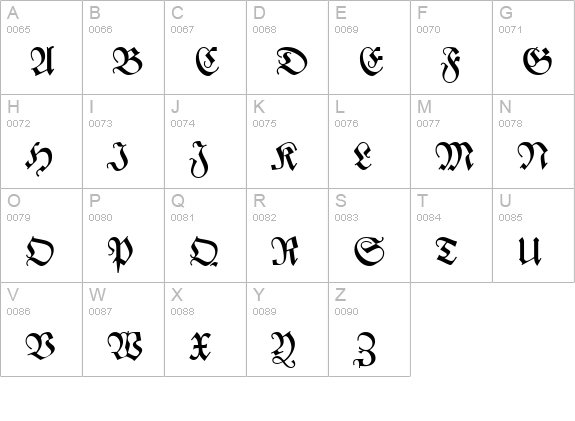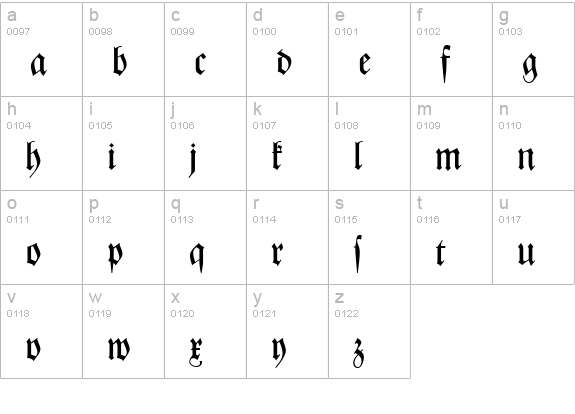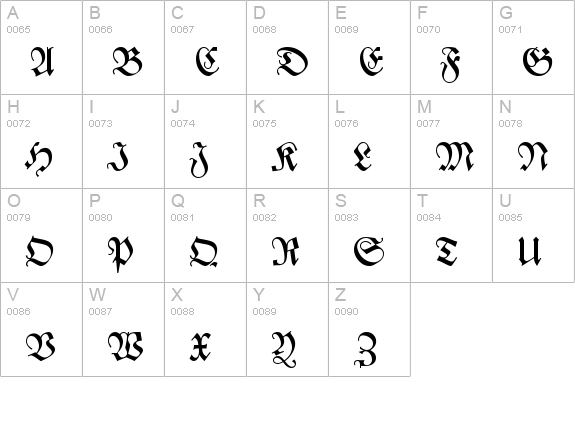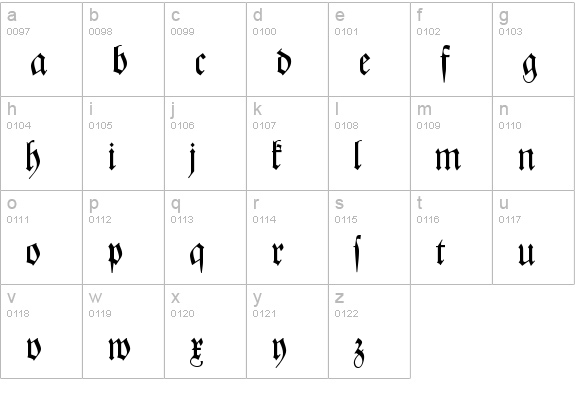
Z690-Blackletter-Regular Font Details
Z690-Blackletter-Regular is the standard, neutral variant in the Z690 typeface family \xE2\x80\x94 well suited to general body text, paragraphs, and standard typographic work.
Z690-Blackletter-Regular font is a stunning display typeface that exudes a sense of medieval charm and sophistication. With its intricate details and ornate design, this font is perfect for creating striking headlines, logos, and branding materials that demand attention. What sets Z690-Blackletter-Regular font apart is its unique blend of traditional blackletter elements with a modern twist, making it a versatile choice for a wide range of design projects. Whether you're working on a historical-themed website, a vintage-inspired poster, or a gothic wedding invitation, this font is sure to add a touch of elegance and drama to your creations. Best of all, Z690-Blackletter-Regular font is available for free download at FontsMarket.com, allowing you to access this exquisite typeface without any cost. So why wait? Add a touch of old-world charm to your designs with Z690-Blackletter-Regular font today!